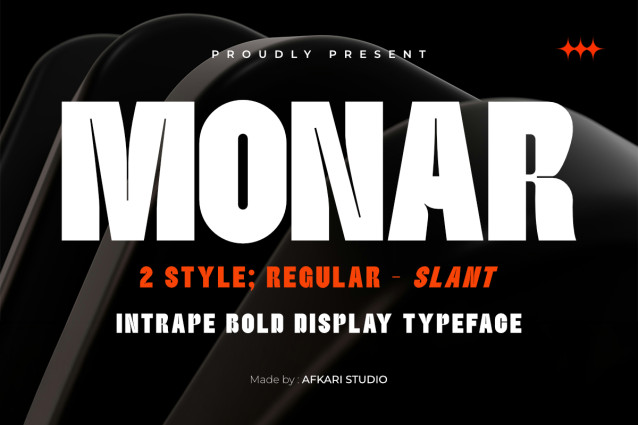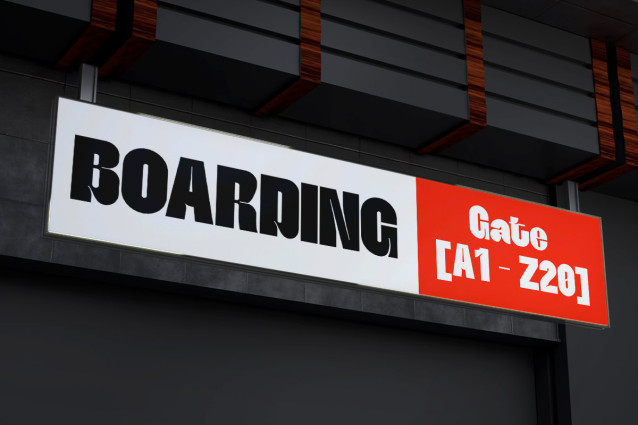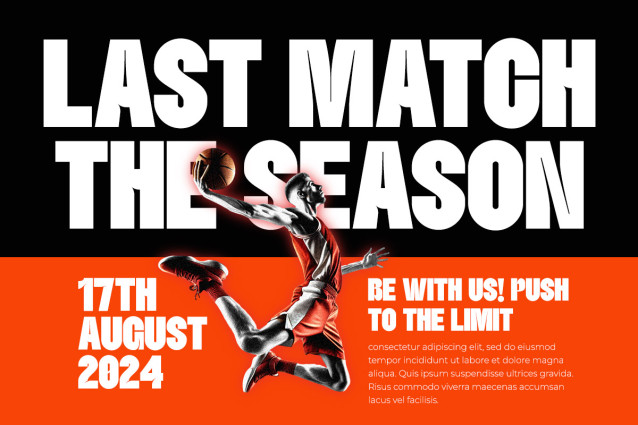
Monar – Intrape Bold Display Typeface Font
Monar is a bold display typeface crafted to deliver powerful visual impact, modern character, and outstanding readability. Designed for creators who want typography that stands out, Monar combines strong geometric forms with clean contemporary styling, making it an excellent choice for branding, headlines, logos, posters, packaging, advertising, social media graphics, and editorial design.